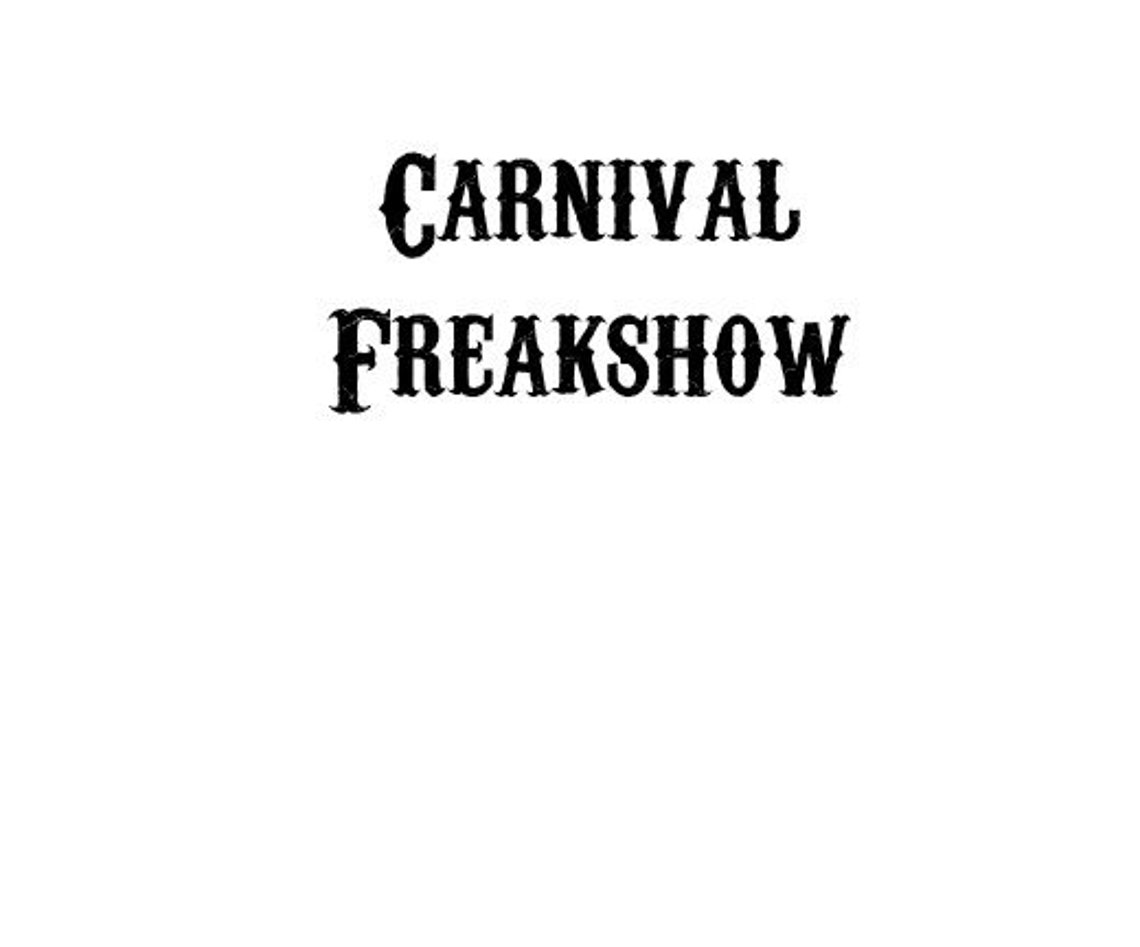
Carnival Freak Show Font
Carnival Freak Show Font - Web carnivalee freakshow is a high quality western display font that is designed by chris hansen and is available for free.